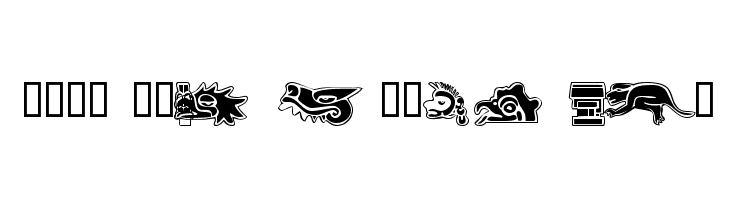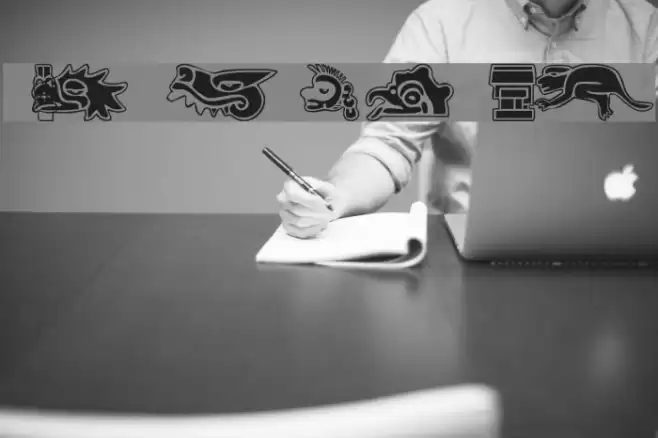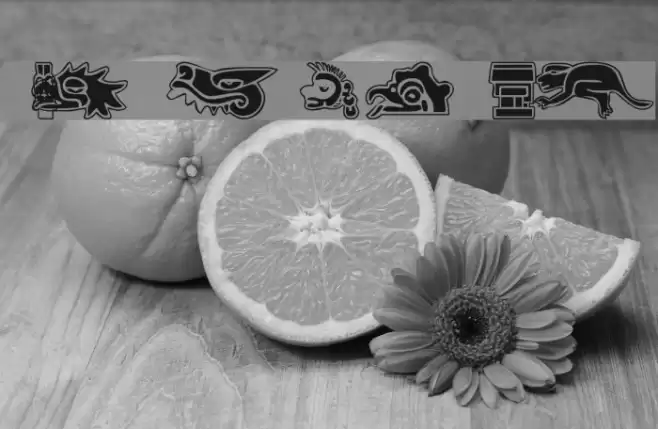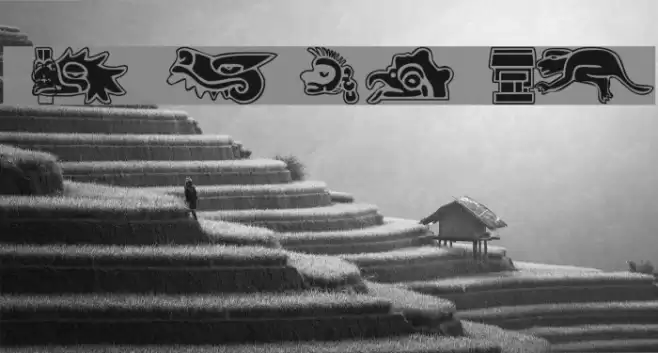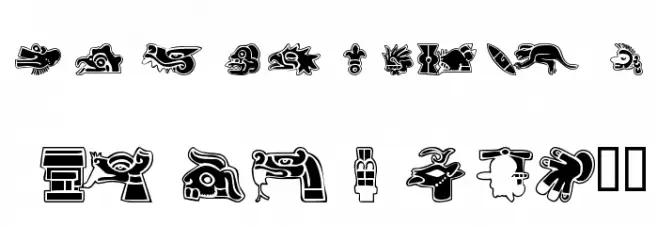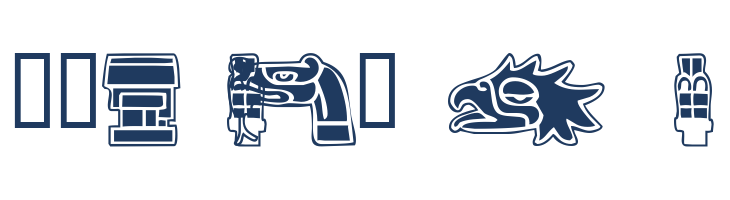
101! Aztec SymbolZ Font
| Anwendungsfall | Logos, Artistic projects, Cultural displays |
| Vorgeschlagene Projekte | Ideal for cultural exhibitions, educational materials, themed events, or artistic projects that require historical depth. |